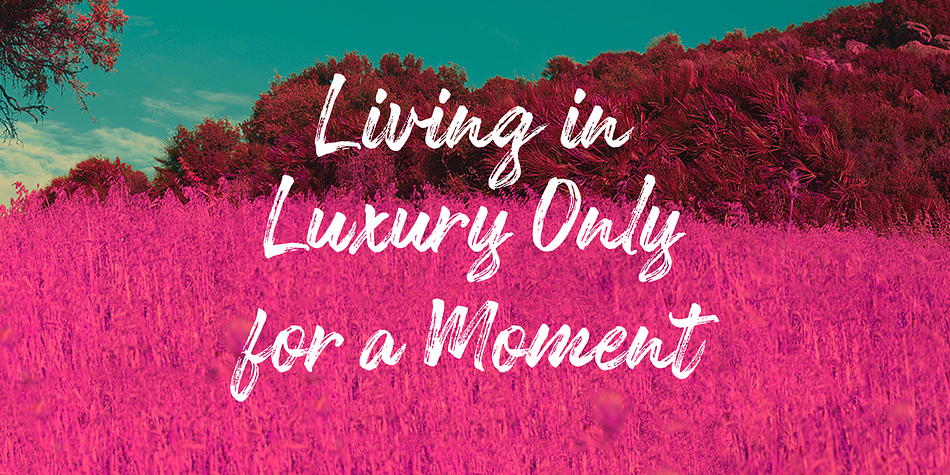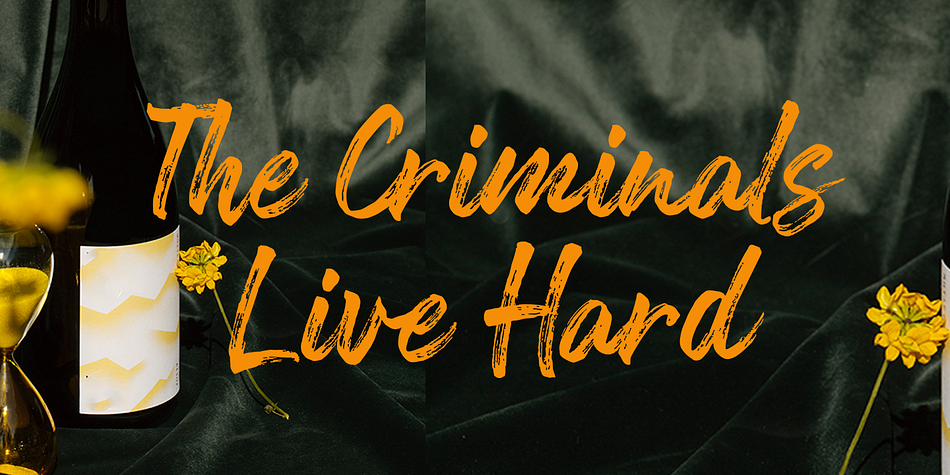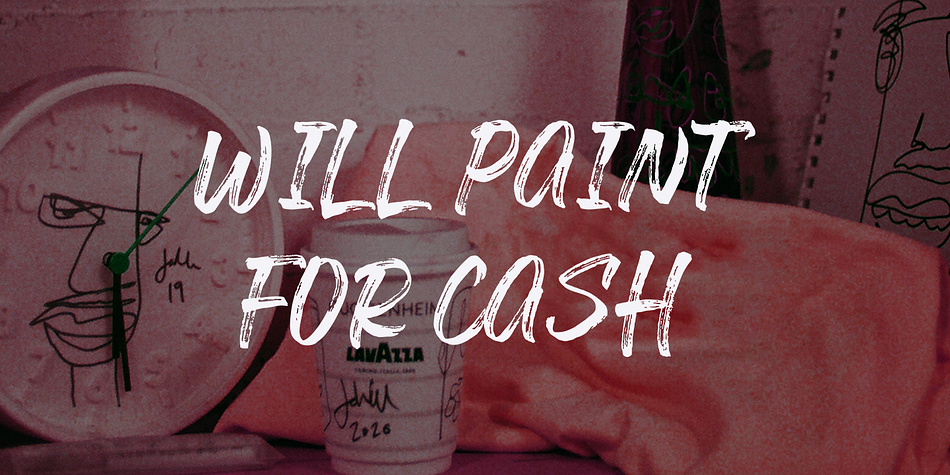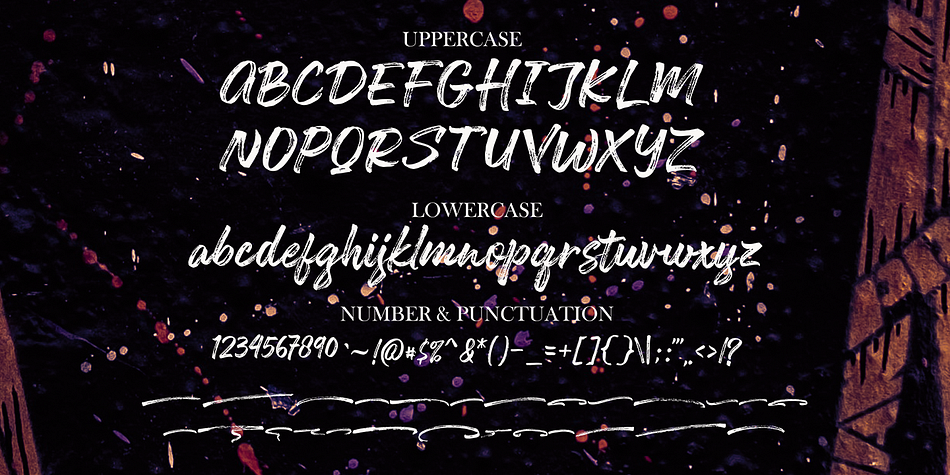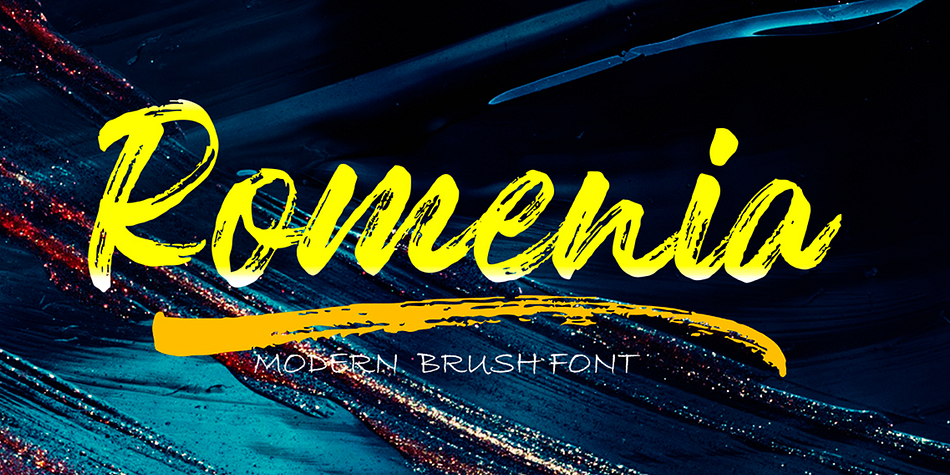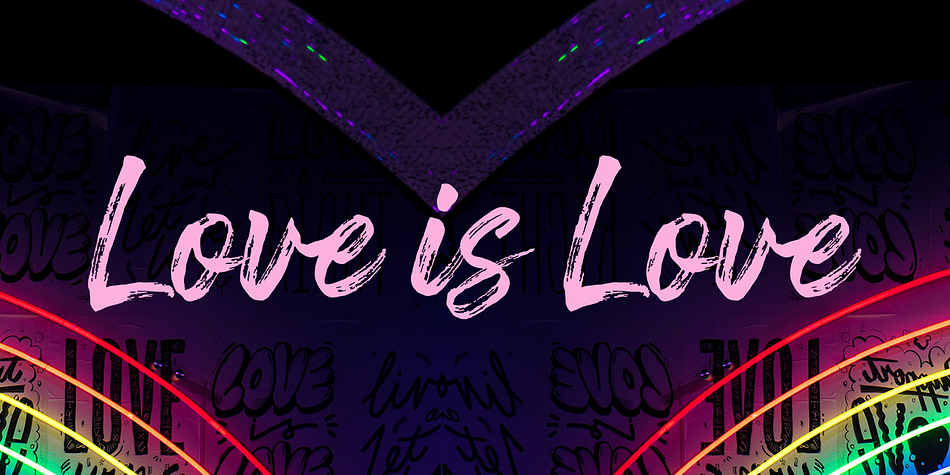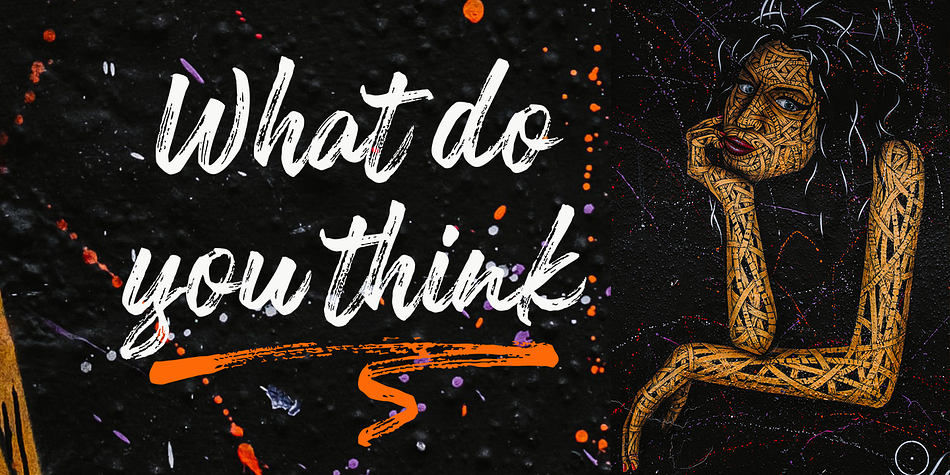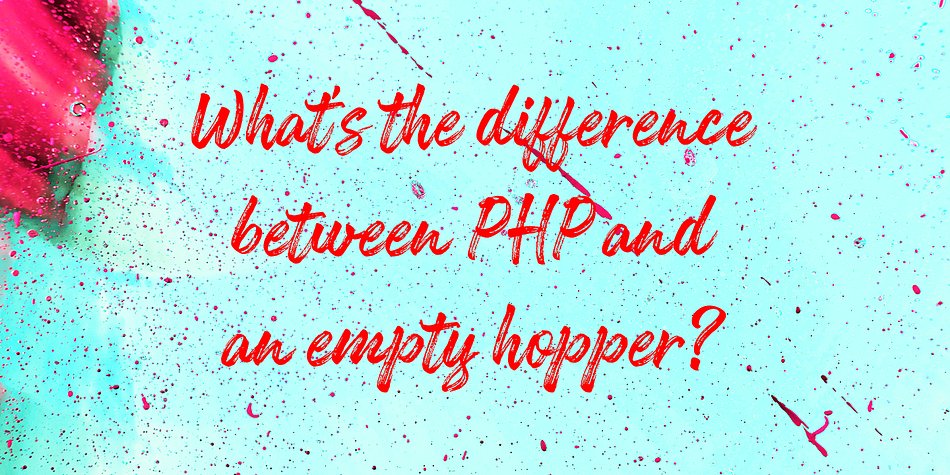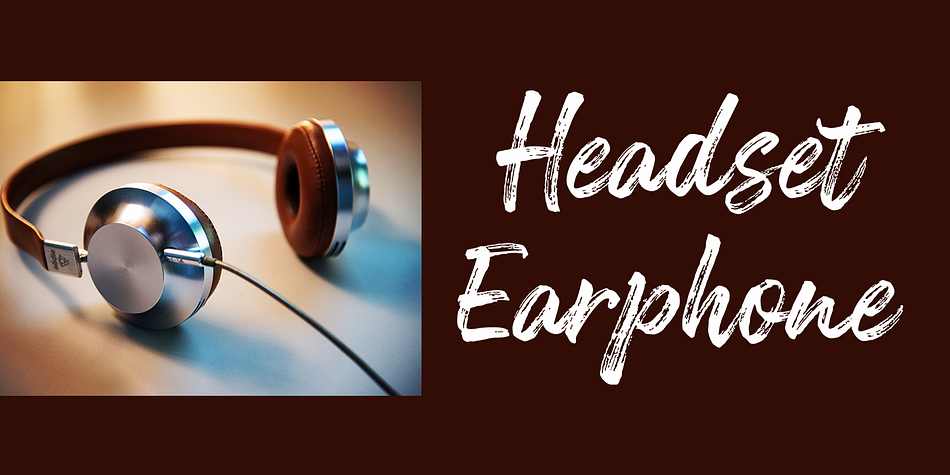
Romenia
Romenia is a brush display and dingbat font family. This typeface has two styles and was published by Gatype.
Romenia is a font that was scratched with a brush pen, to get a natural texture, this font will show the characteristics of the hand. This font is perfect for various places such as clothing, posters, title books, stationery designs, quotes, branding, logos, invitations, greeting cards, t-shirts, packaging designs and more.